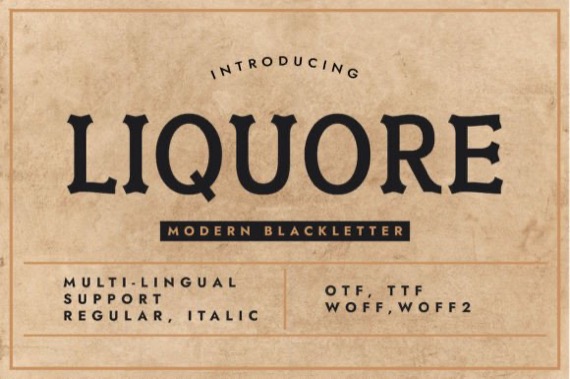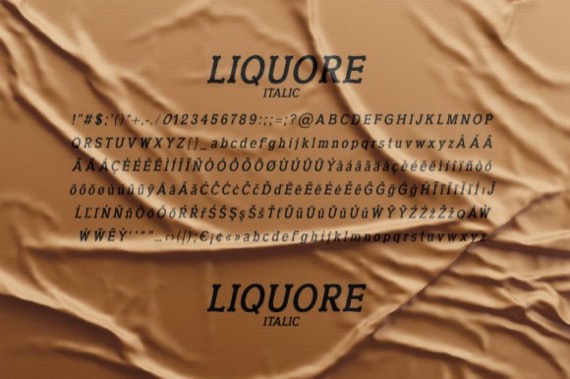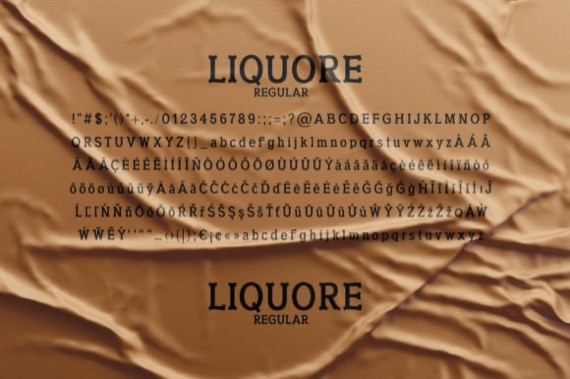
Liquore is a strong, extreme, and vintage blackletter detailed serif font. It was initially created as a readable display font that fits perfectly when you are designing alcohol packaging. However, it fits great other themes such as film posters, horror designs, barber shop graphics and packaging, Halloween, etc.
Liquore Blackletter Font